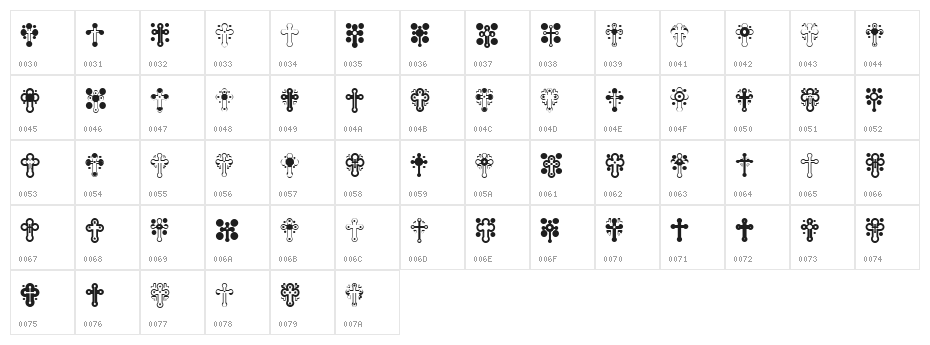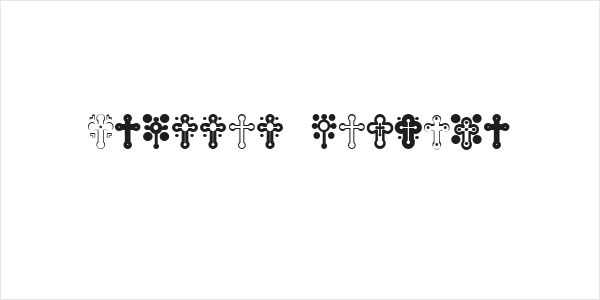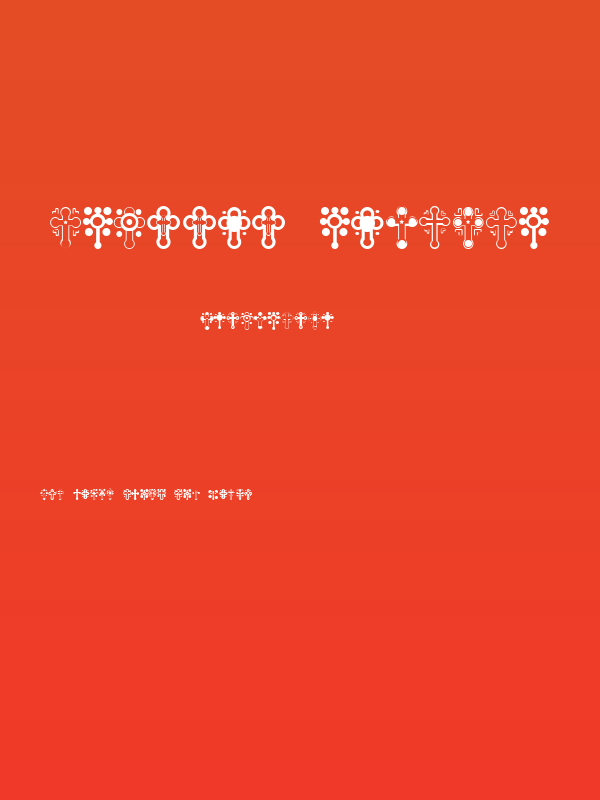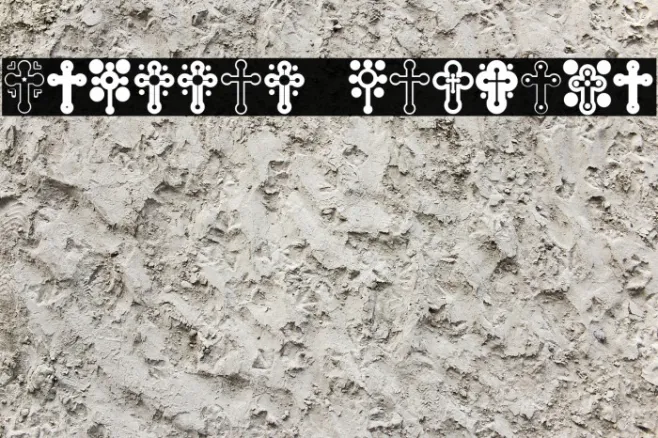
Crosses Regular Font
Crosses Regular Description
This is a decorative font composed entirely of cross symbols, each uniquely designed with varying patterns and embellishments. The characters are highly stylized, featuring a mix of solid and outlined forms, with some incorporating circular motifs or star-like accents. The overall appearance is bold and eye-catching, making it suitable for thematic or religious projects. The font does not follow traditional alphabetical or numerical structures, focusing instead on visual variety and artistic expression.
| Use Case | Logos, Decorative elements |
| Proposed Projects | Ideal for religious-themed designs, decorative posters, or artistic projects requiring symbolic representation. |